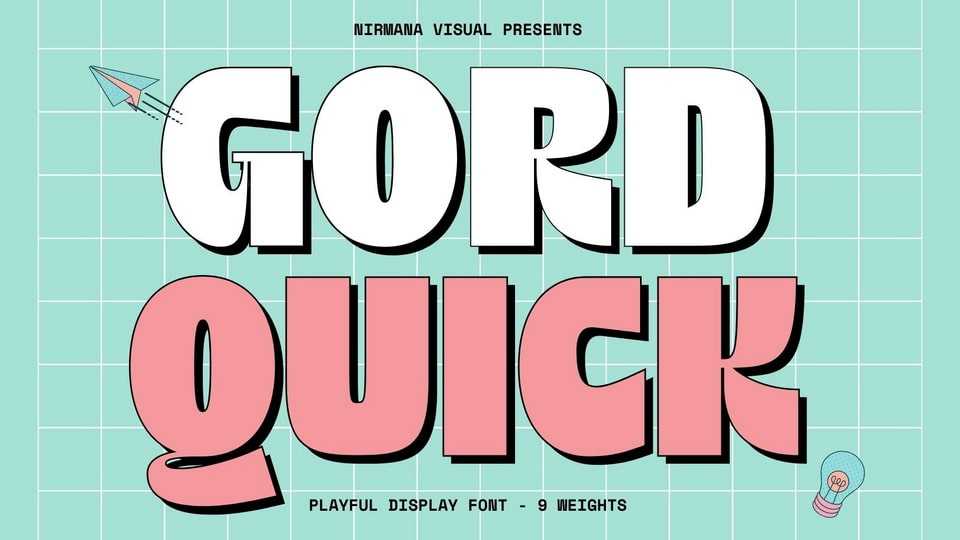
Download Gord Quick font, a bulky and eye-catching display typeface that commands attention. With its thick, blocky letters and unique styling, Gord Quick font is perfect for projects that need a bold and powerful look, from posters to headlines.